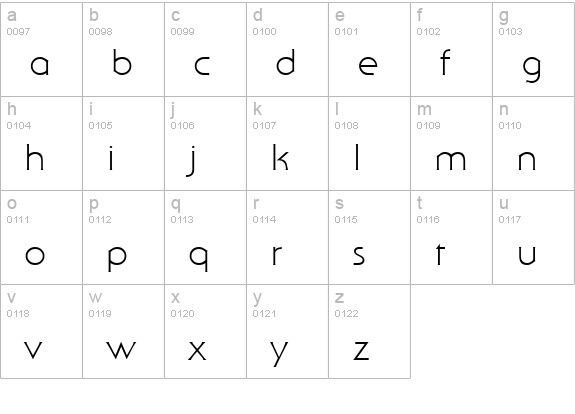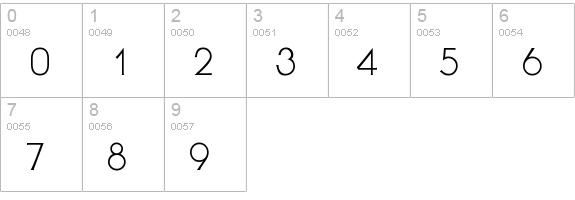
Staid Gothic Light Regular is a refined, elegant variant in the Staid typeface family \xE2\x80\x94 well suited to elegant body text, refined sub-headings, and luxury branding.
Staid Gothic Light Regular font is a sleek and elegant typeface that exudes a sense of sophistication and refinement. With its clean lines and delicate curves, this font is perfect for any project that requires a touch of class and elegance. The Staid Gothic Light Regular font is designed with a modern twist on traditional Gothic letterforms, giving it a unique and contemporary aesthetic. Its light weight and balanced proportions make it highly versatile and suitable for a wide range of applications, from logos and branding to editorial design and website copy. One of the best features of the Staid Gothic Light Regular font is that it is completely free to download. That's right, you can enhance your design projects without spending a dime. This font is freely available at FontsMarket.com, a reputable online platform for high-quality fonts. Whether you're a professional designer or a creative enthusiast, the Staid Gothic Light Regular font is a must-have in your font collection. Its timeless appeal and effortless versatility make it a reliable choice for any project, while its free availability adds even more value to its already impressive qualities. So why wait? Add a touch of elegance and sophistication to your designs with the Staid Gothic Light Regular font, freely available to download at FontsMarket.com. Embrace the beauty of this typeface and elevate your designs to new heights.